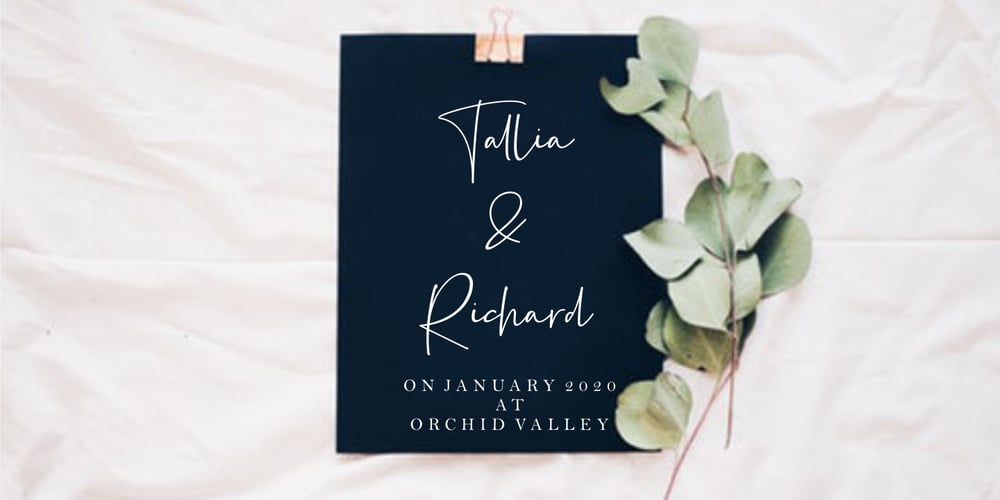
Silence Rocken
Silence Rocken font
Silence Rocken Font Family was designed by Muhammad Fikry and published by Fikryal. Silence Rocken contains 1 styles and family package options. Silence Rocken Handwritten Font is perfect for logo, branding, invitation, tittle, wedding invitations, social media posts, advertisements, product packaging, product designs, labels, photography, watermark, special events, magazine, web design, etc. What’s Included : Silence Rocken ( otf, ttf ) Ligatures Multilingual support If you have any questions please don’t hesitate to contact me. Thank you!